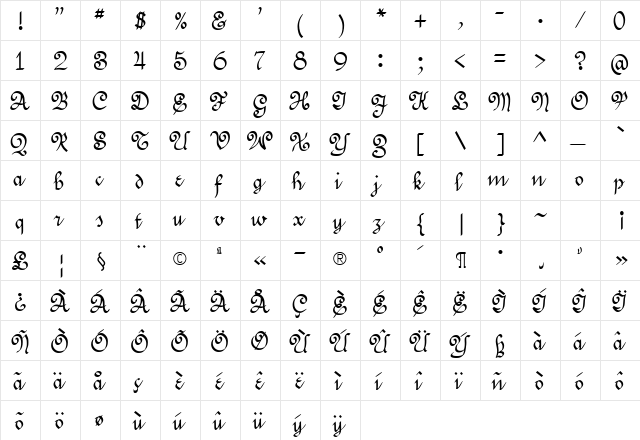
Swirlity Bold
Design Context for Swirlity Typeface
Swirlity is built around its visual character rather than neutral utility — its distinctive forms are designed to make an impression at display sizes. Its bold stroke weight gives it real presence on the page.
Font Pairing: Pair with a clean neutral sans-serif for body copy to let Swirlity's character lead without overwhelming the composition.
Pro Tip: Treat Swirlity as the centrepiece of your typographic hierarchy. One strong heading set in a decorative face can carry an entire layout.